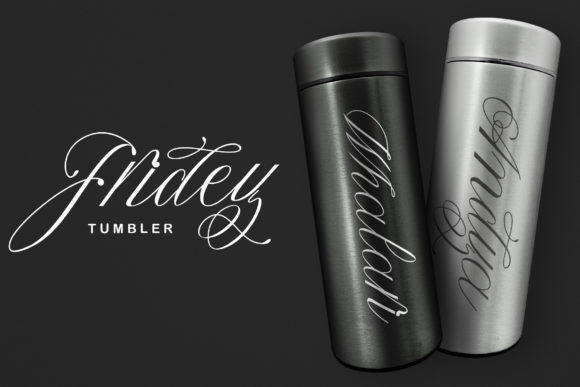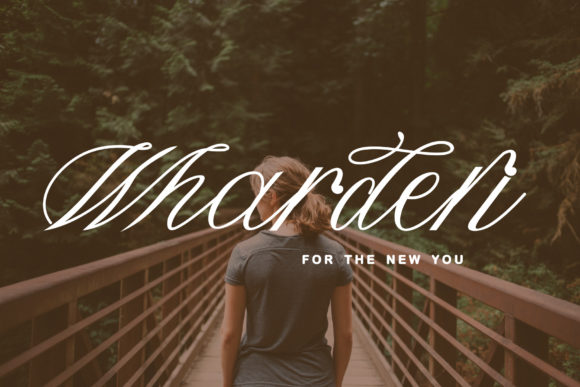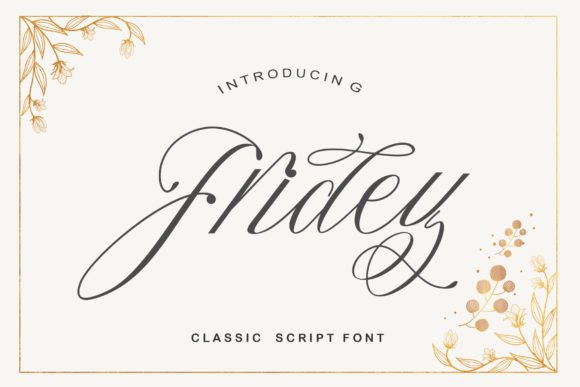
Introduction to Fridey Font
Fridey is an exquisite handwritten font, masterfully designed to become a true favorite.
Why Choose Fridey Font?
Fridey Font offers exceptional quality and versatility, making it a valuable addition to your design toolkit. Whether you’re creating for personal projects or commercial use, Fridey Font delivers professional results.